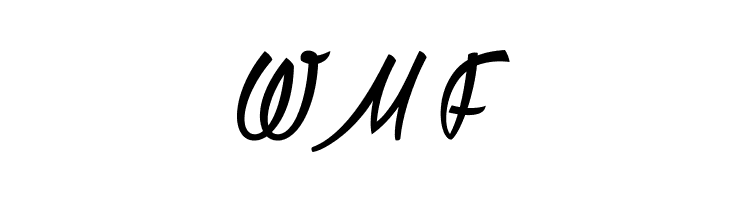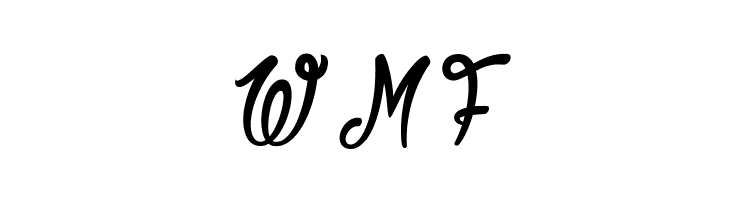
Suburban Pledge Font
A dynamic and elegant script font with flowing curves and a modern touch.
Promocyja Regular Font
An elegant script font with intricate curves and decorative swashes.
konstytucyja Font
An elegant, cursive font with decorative swirls and loops.
Ornamentis_PersonalUseOnly Font
An intricate decorative font with elaborate ornamental designs.
Sketch Font
A bold, brush-style script font with dynamic, textured strokes.
Seasider Font
An elegant and decorative script font with flowing, ornate characters.
Mr Sunshine 2 Font
A playful, bold font with rounded edges and a whimsical style.
Atelier Omega Font
A sophisticated and elegant script font with ornate uppercase letters and smooth, readable lowercase letters.
La Cithare Font
A dynamic and elegant script font with flowing, cursive letterforms.
Silkworms_PersonalUseOnly Font
A decorative font with a segmented, silkworm-like design.
Vinegar Stroke Font
A bold, playful font with rounded, thick strokes and tight spacing.
Raisin des Sables Font
A sophisticated script font with elegant, flowing letters and decorative uppercase characters.
America and Stars Font
A bold, elegant cursive font with flowing, ornate characters.
Bethanie Snake_PersonalUseOnly Font
A bold, brush-style script font with dynamic strokes and artistic flair.
Agatha Needs Flesh Font
A dynamic, flowing script font with elegant, cursive letterforms.
Barber Street_PersonalUseOnly Font
A bold, vintage script font with a brush-like texture and decorative style.
Neck Candy Font
A bold, 3D striped font with a playful and decorative style.
BIG CAR Short Gun Font
A bold, rounded font with a playful and approachable style.
Chardons 2 Font